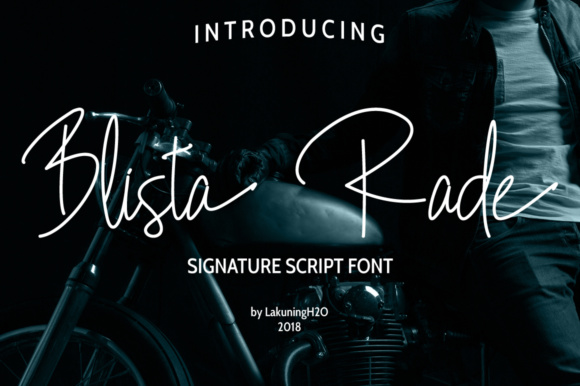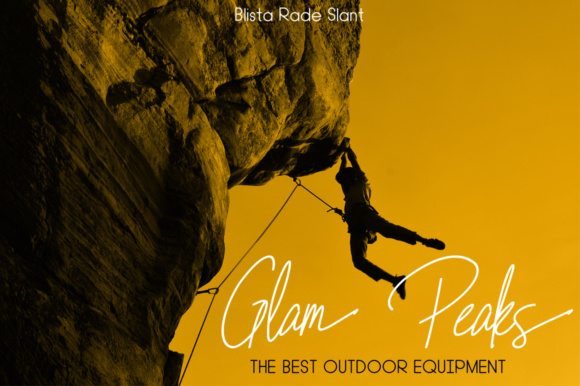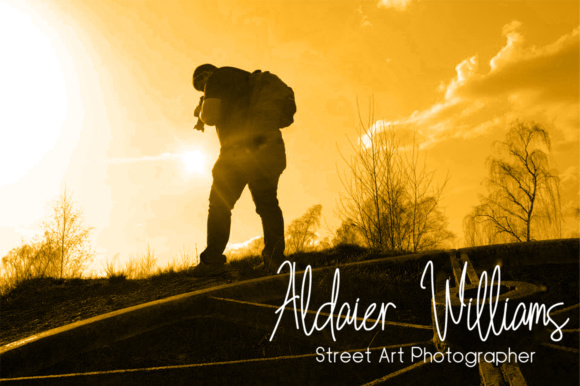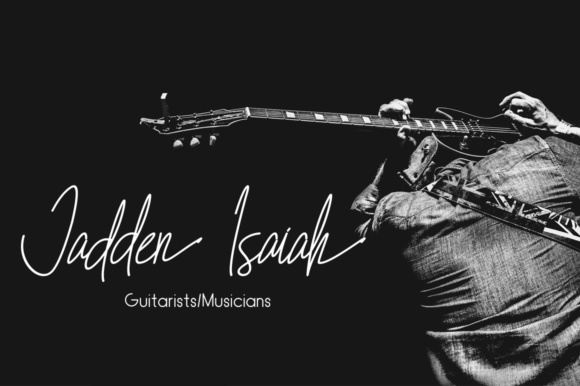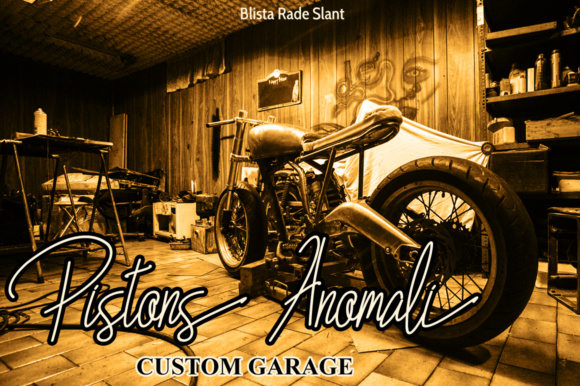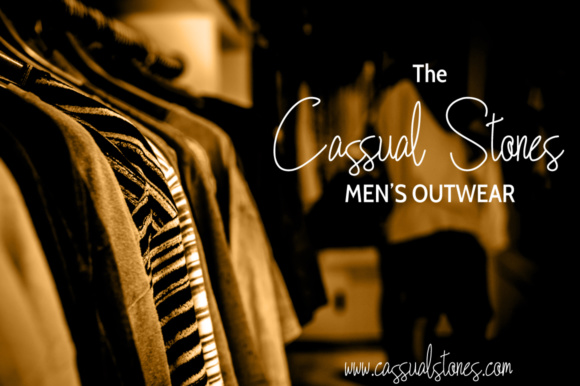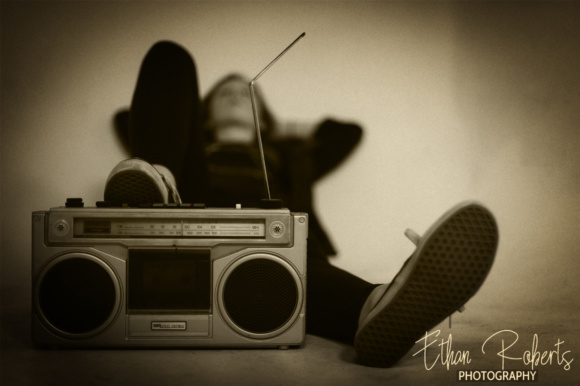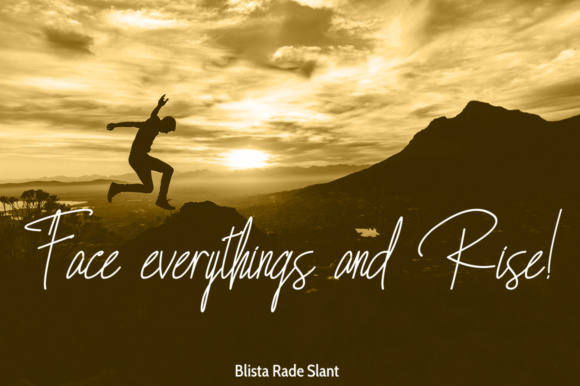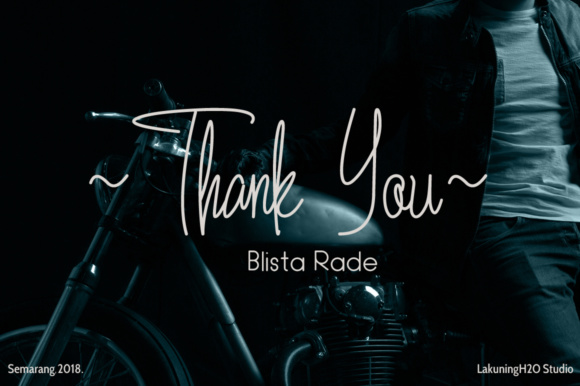
Blista Rade Font
About Blista Rade Font
Blista Rade is a handwritten signature script font with a natural and clean flow on each line. This gorgeous script font is an excellent option for displays and logotype works.